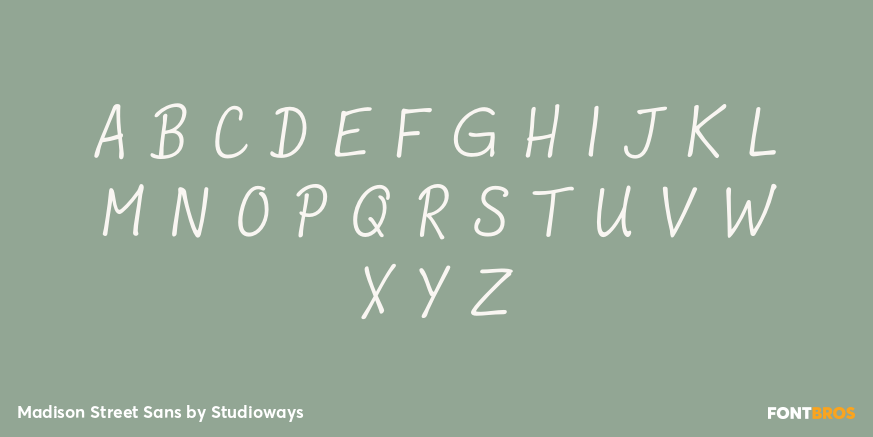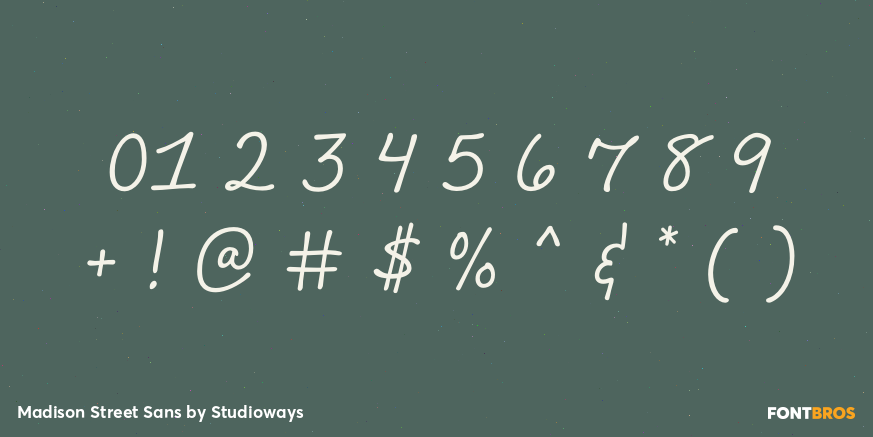
Madison Street Sans
Buy NowThe three Madison Street Text fonts are each based on Elaina DeBoard's printing styles, and pair nicely with the Madison Street Spencerian typefaces when set at 1/3 point sizes. Madison Street Sans and Serif are casual hand drawn text styles. The Sans features small caps instead of a traditional lowercase.
Madison Street Script is a non-connecting, hand drawn italic script, with plenty of casual and friendly shapes! There are a handful of ligatures and initial and final glyph forms to help alleviate those more difficult letter combinations.
All three of these text fonts work great for invitations, place cards, and similar announcement materials, and each supports an extended European character set.